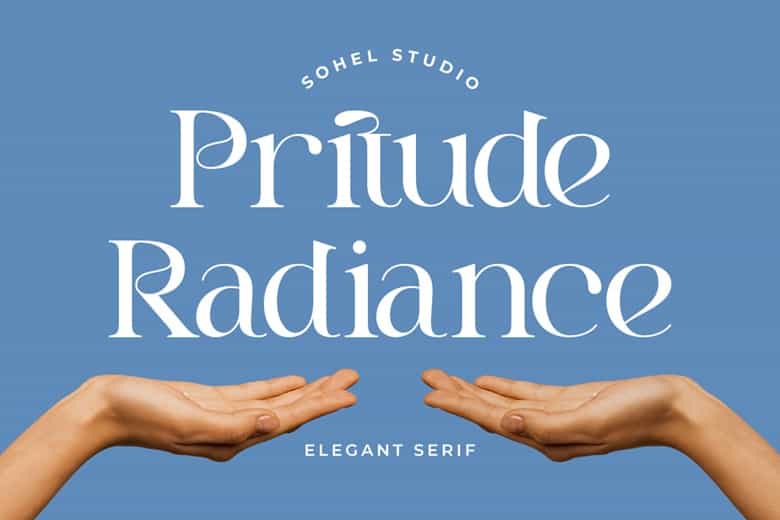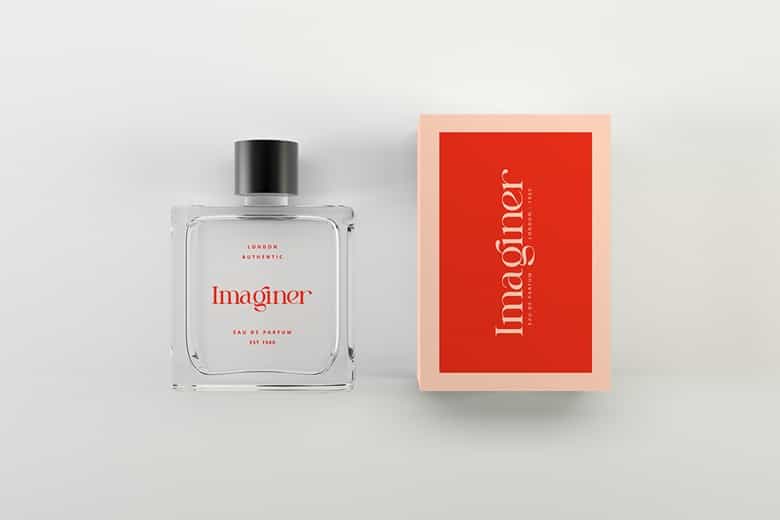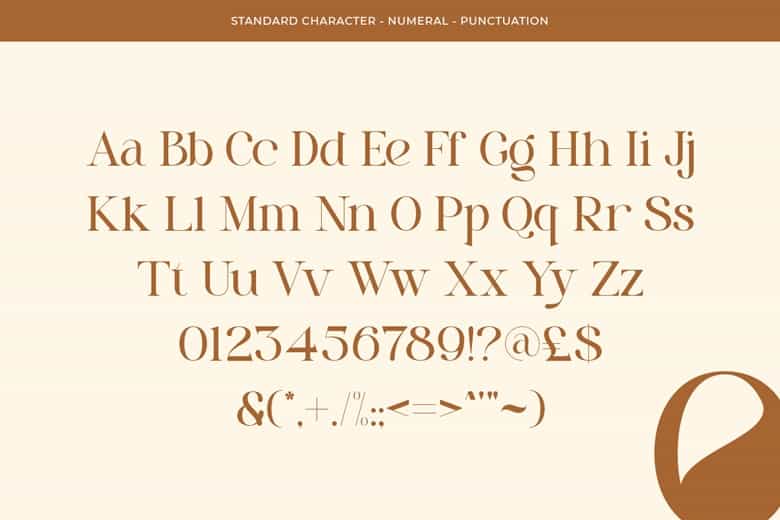
Pritude Radiance is best suited to branding, it has a sleek and clean look and unique topping, fully supported with multilingual and has great kerning. It is ideal for an elegant and luxurious logo design, magazine, women’s magazine, fashion or cosmetic brand, fashion promotion, modern advertising design, invitation card and art quote, home decoration, book/cover titles, special event, tote bag, T-shirt, Advertising and much more.